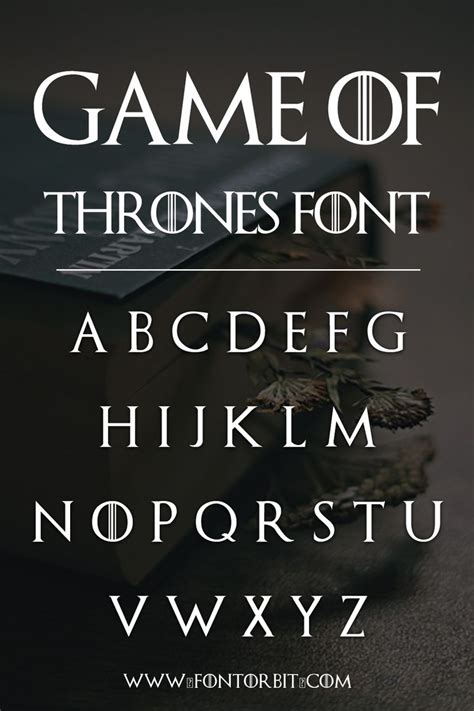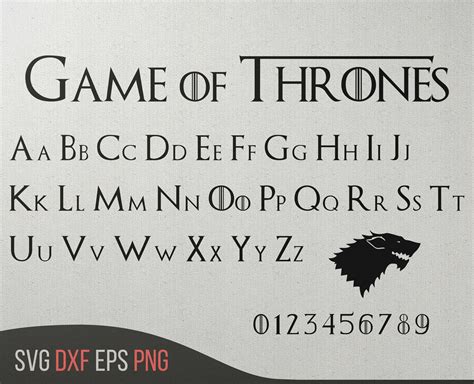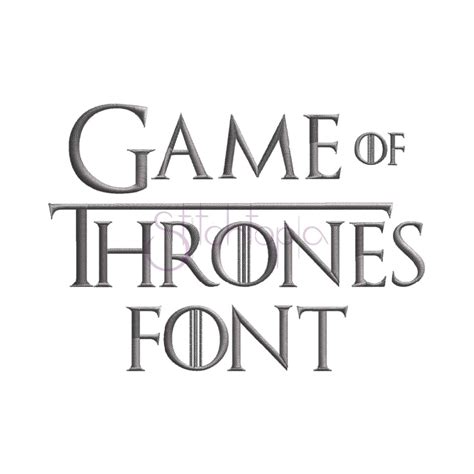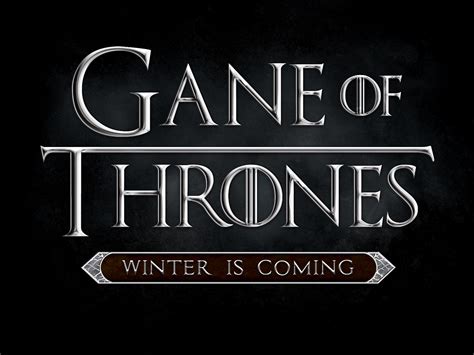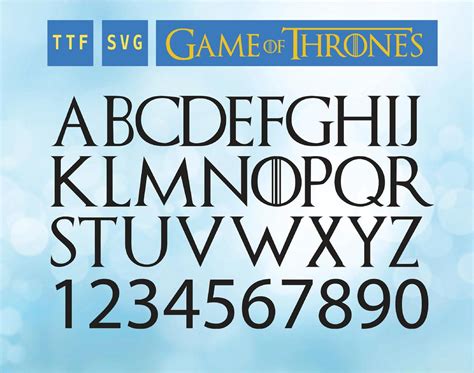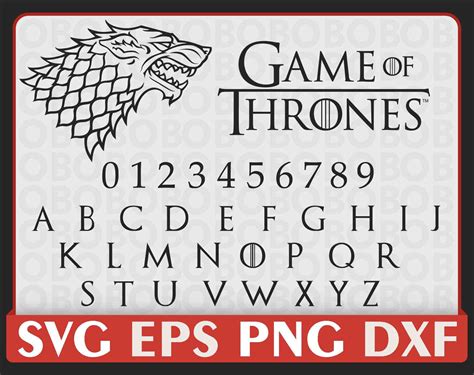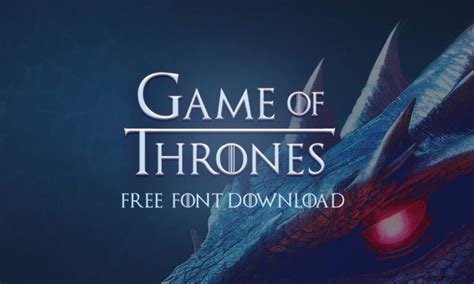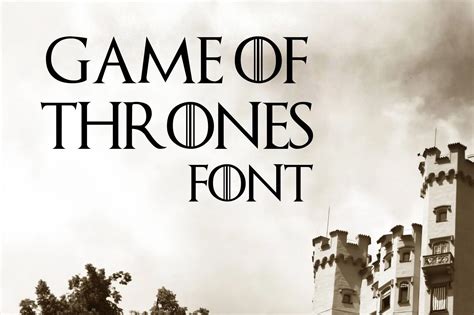
The Game of Thrones font is a popular choice for fans of the popular TV series and book series. It is a unique and distinctive font that has become synonymous with the show's epic and dramatic nature. This font is a key element in the show's visual identity, helping to create a sense of grandeur and mystery.
The font is inspired by the Old English and Gothic styles, with a modern twist. It features sharp, angular lines and a bold, heavy appearance, which adds to the overall aesthetic of the show. The font is designed to be versatile, working well for both display and text purposes, and it has been used extensively in the show's titles, logos, and promotional materials.
One of the key benefits of using this font is its ability to evoke a sense of power and authority. The bold and dramatic style helps to convey the epic scale of the show's world and the complex political landscape of Westeros. It has become an iconic symbol, instantly recognizable to fans around the world.